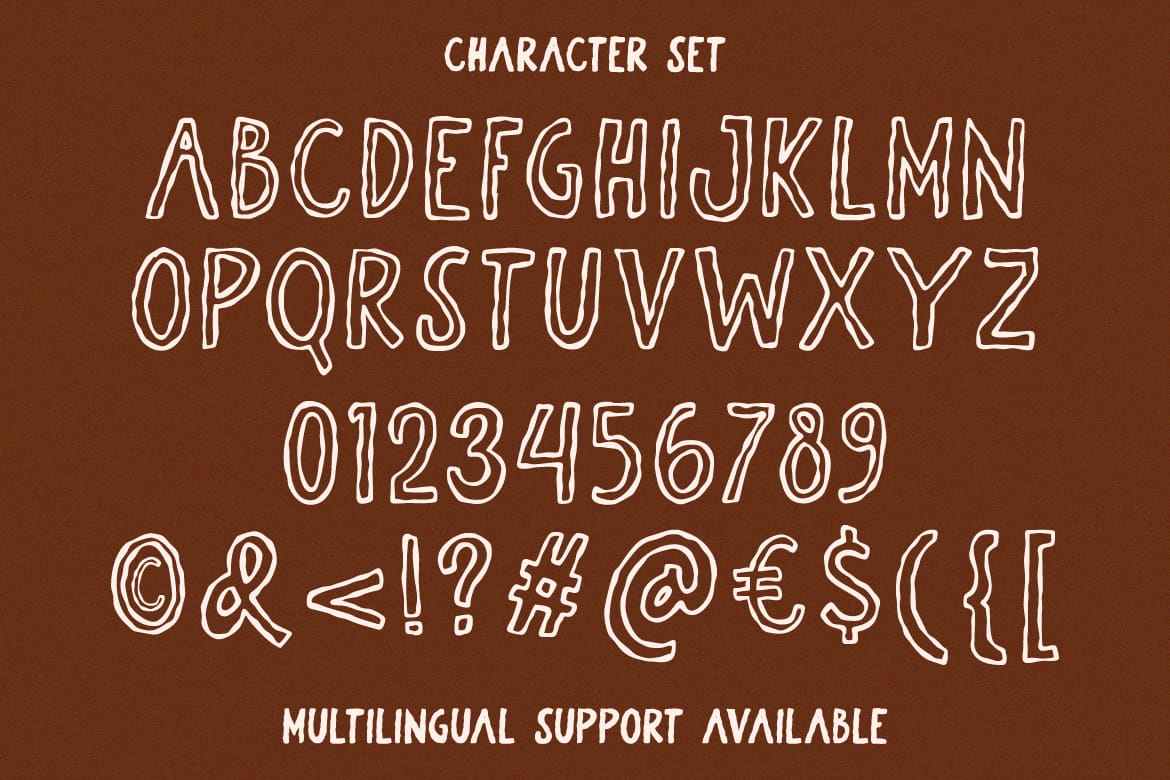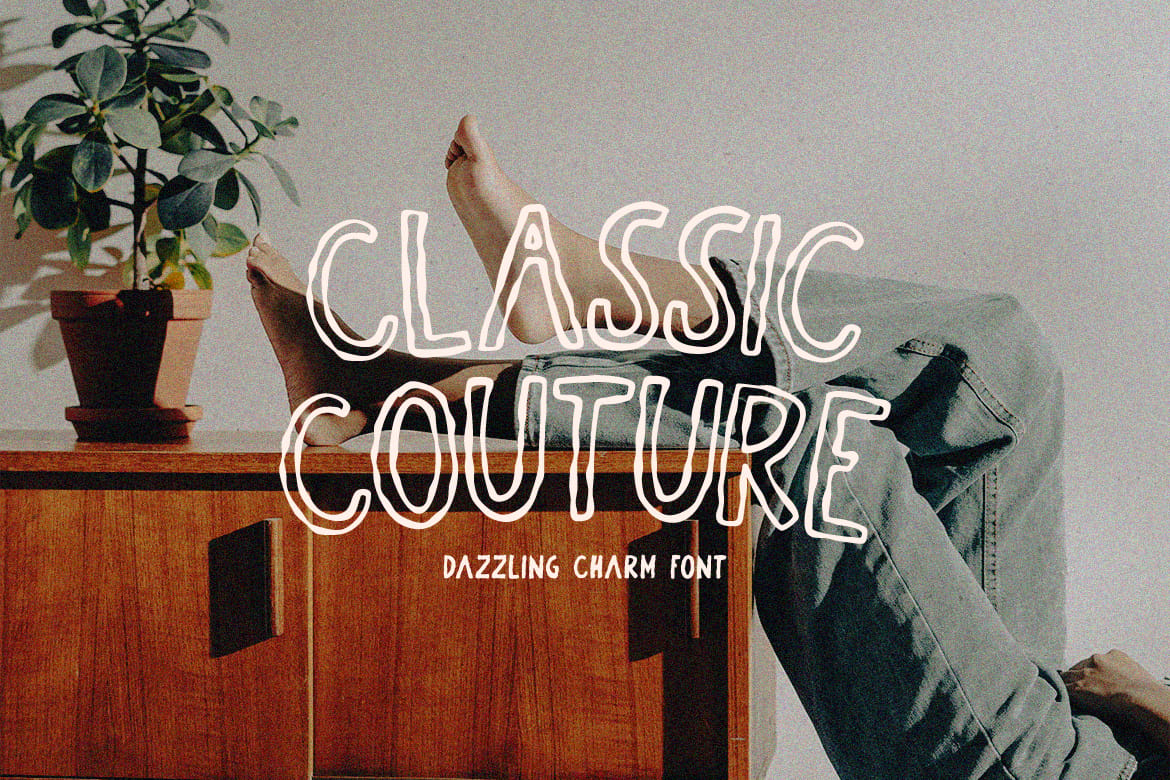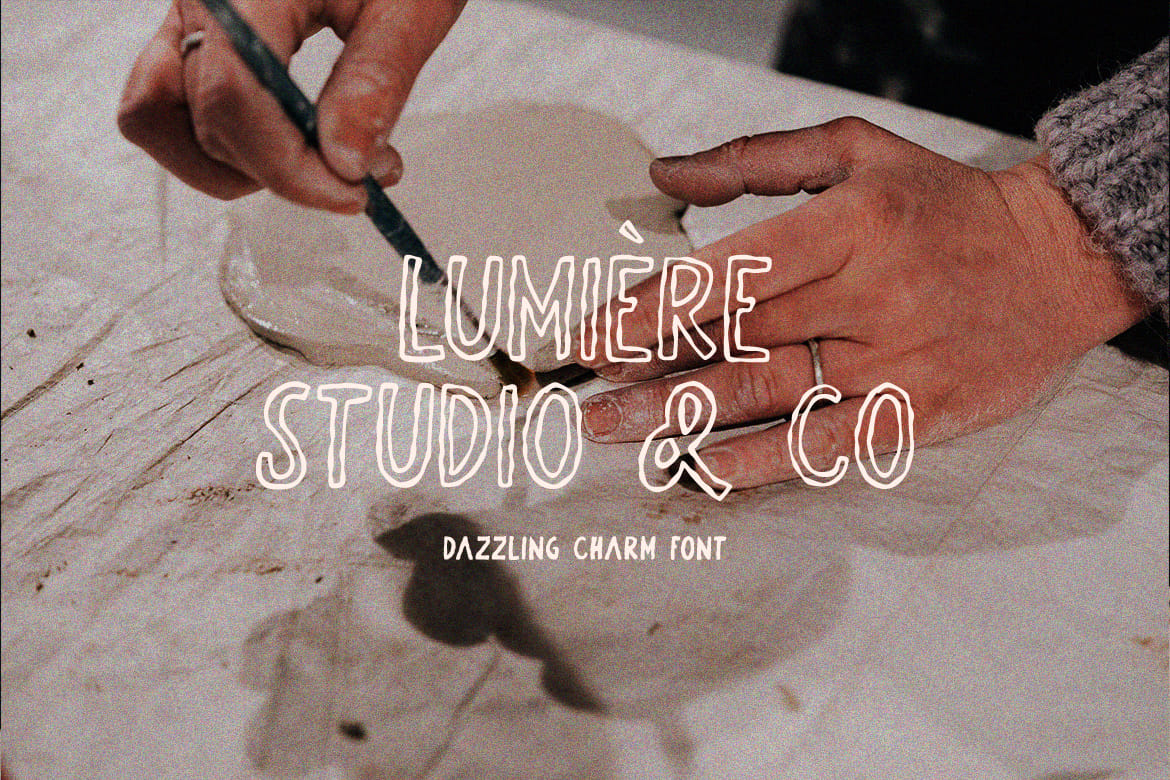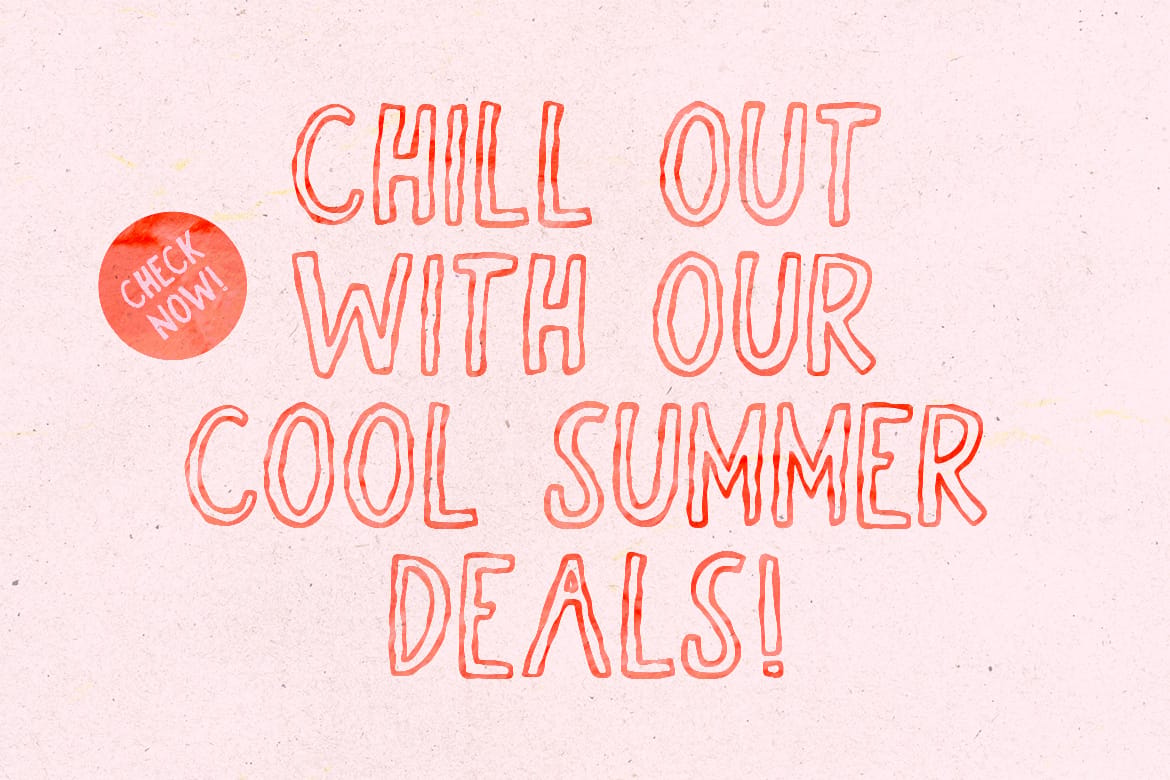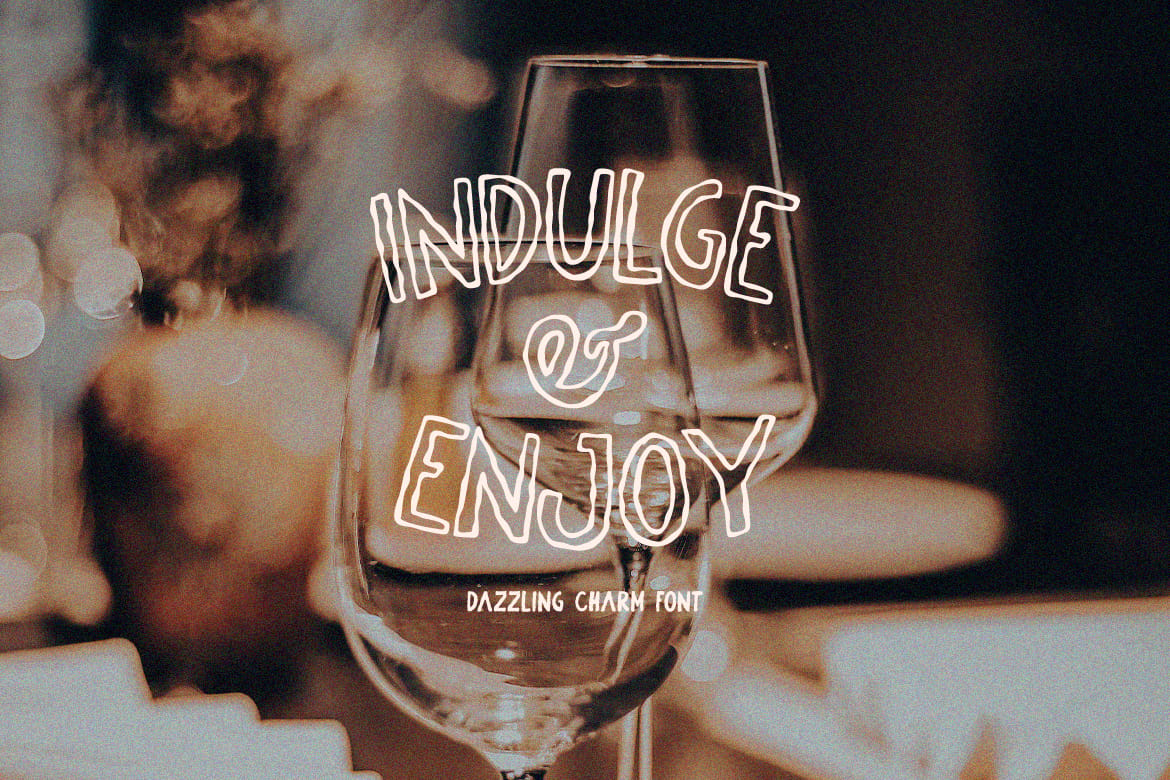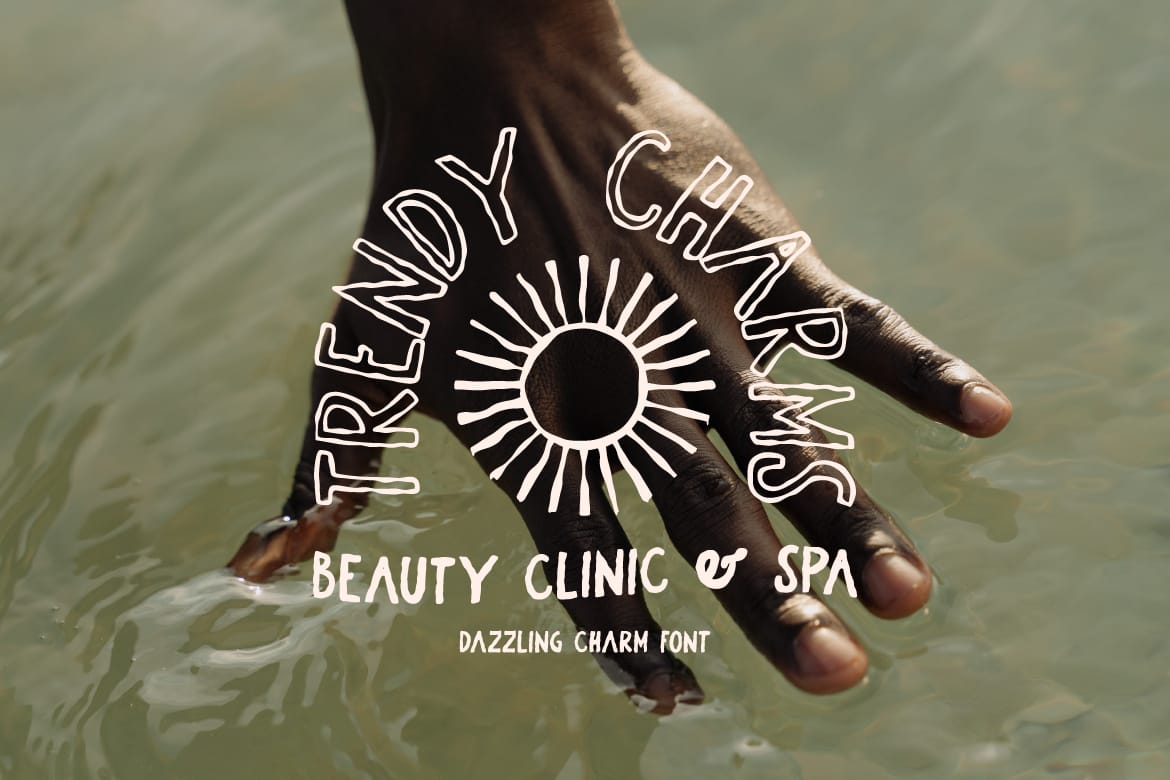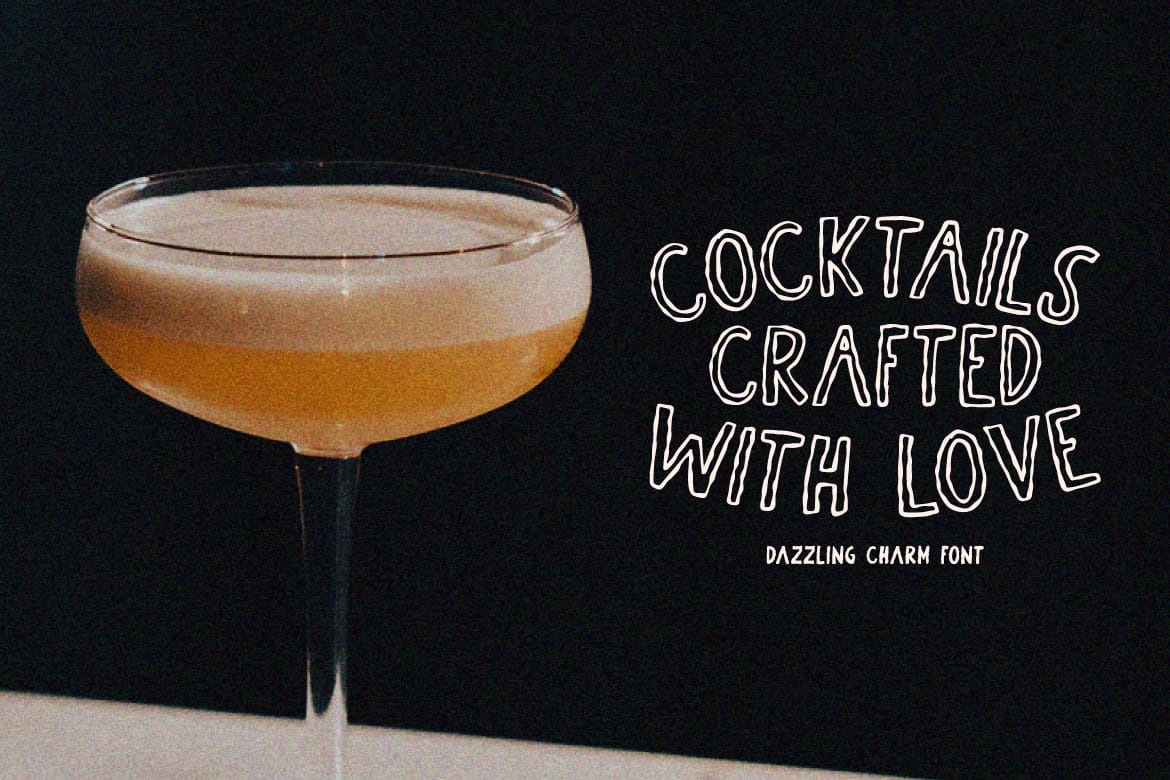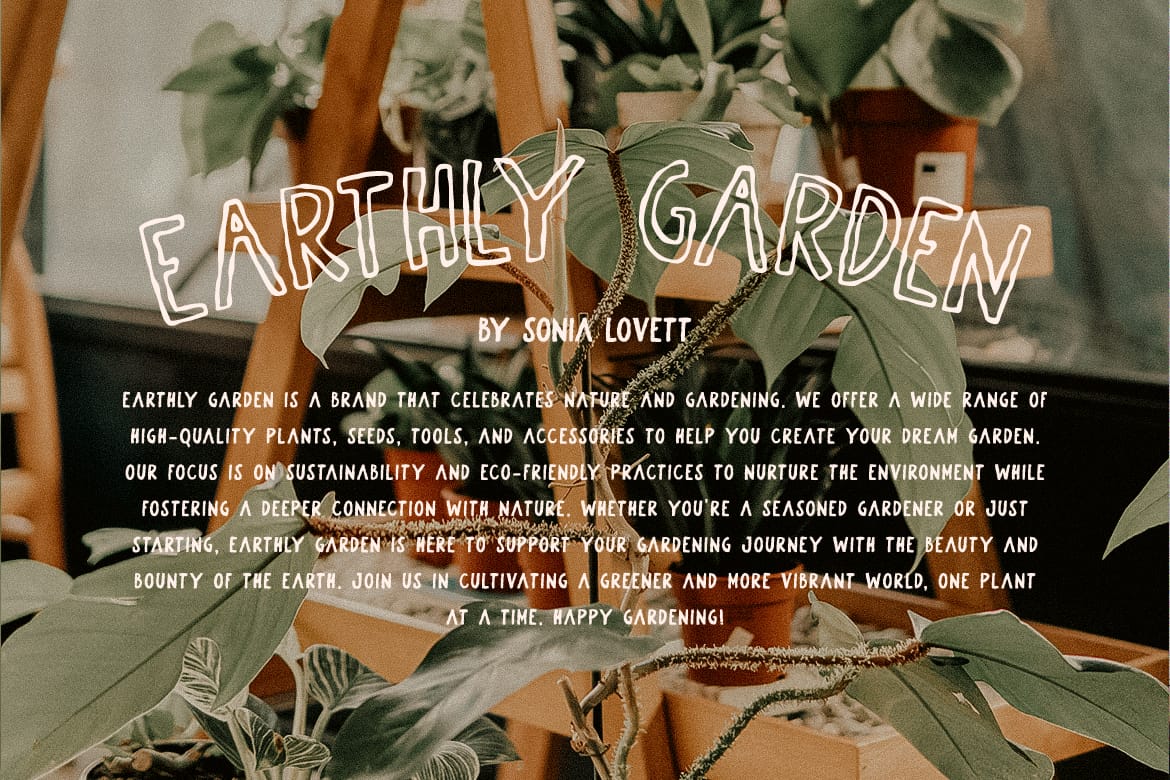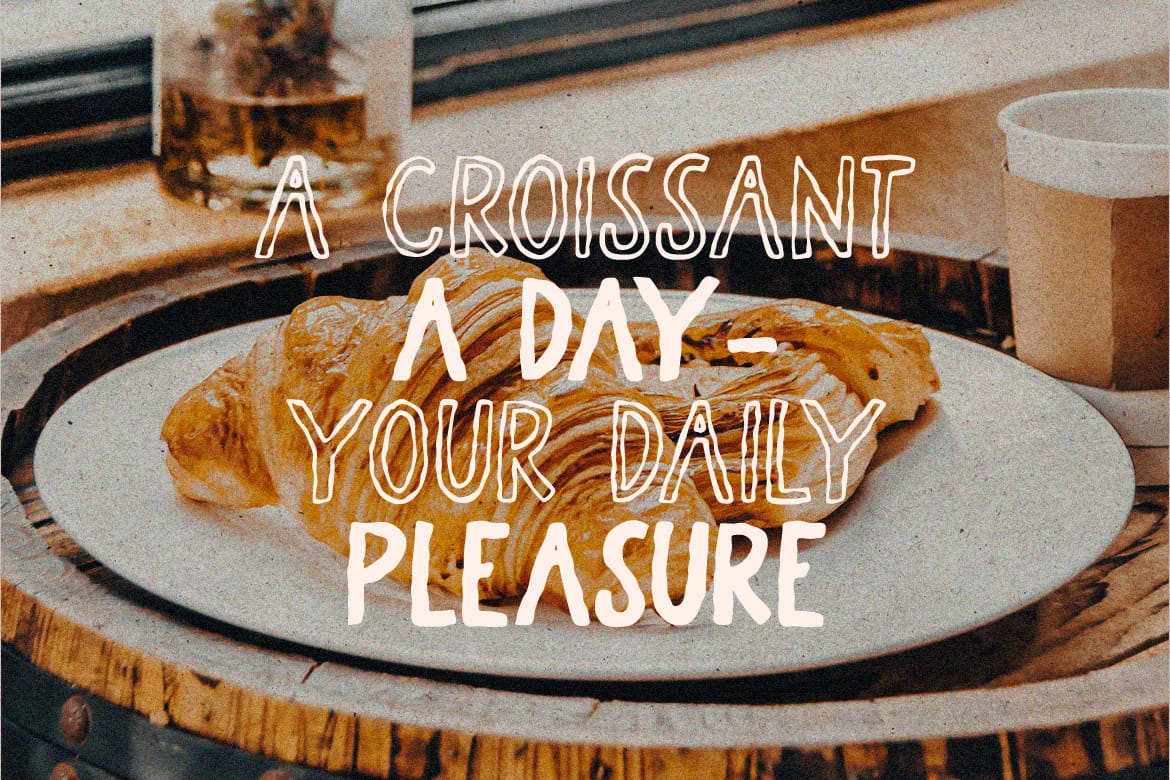
Dazzling Charm - Rough Display Font
Introducing Dazzling Charm, a hand-drawn font exuding a rough and edgy style. This font offers two versions: Regular for a smooth yet captivating look and Outline for a distinctive and bold appearance. Perfectly suited for quotes, branding, logos, and social media posts. Features: Uppercase, Lowercase, Numeral, Punctuation, Multilingual, Alternates & PUA Encoded. Obtained file format: Otf, Ttf & Woff.
• Regular and Outline versions included
• Rough edgy hand-drawn display style
• Alternates and PUA encoded